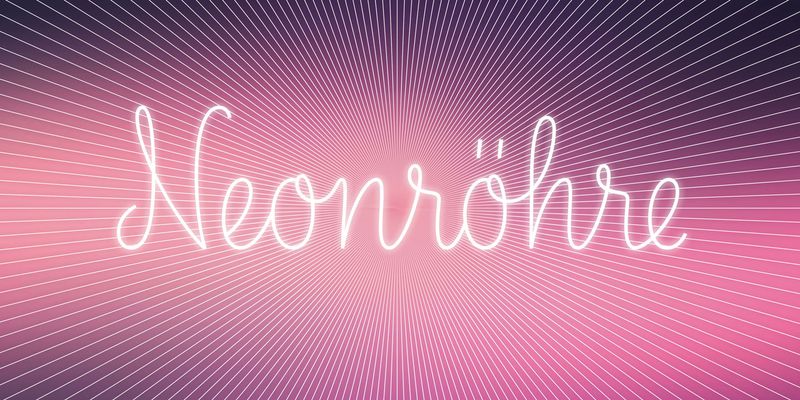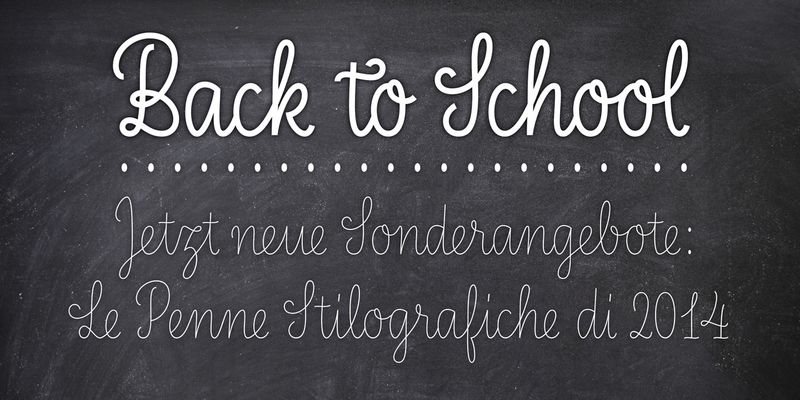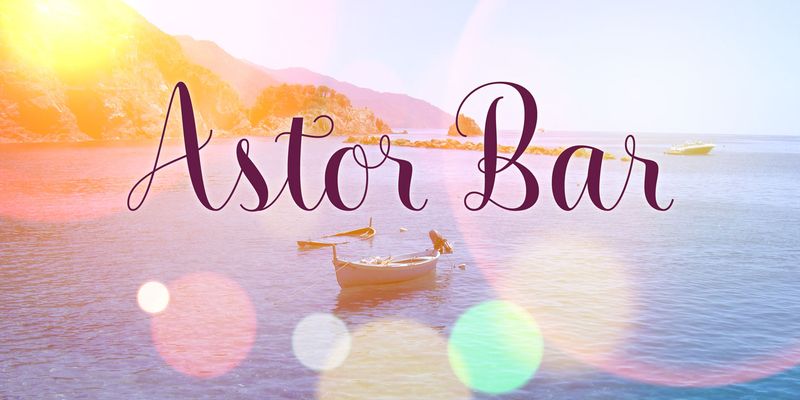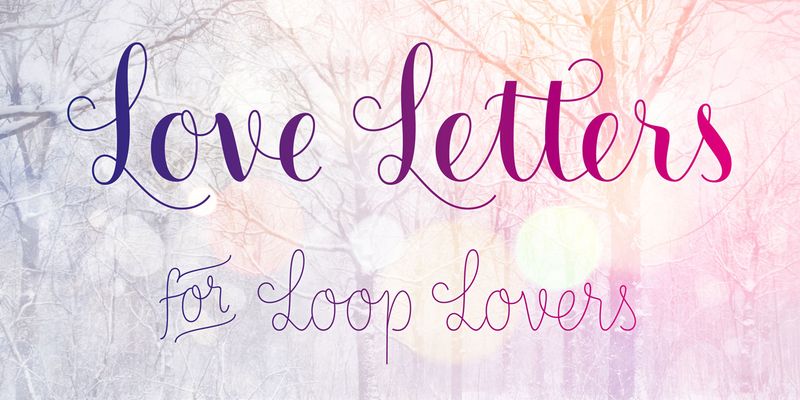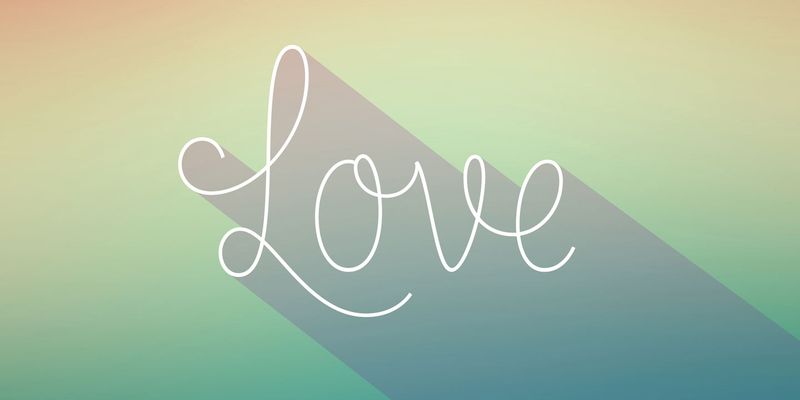
Type designer Ulrike Rausch put all of her heart and soul to interconnect all these loopy letterforms. The perfect connections and many swash variations make it look like you actually sat down with a pen on paper. A pretty good pen in fact. LiebeLotte comes with a state-of-the-art character set. She also sports a variety of ligatures and alternative forms, available through OpenType features. This font family guarantees plenty of fun with this versatile package of loopy letters for letter lovers. Or lovely letters for loop lovers.